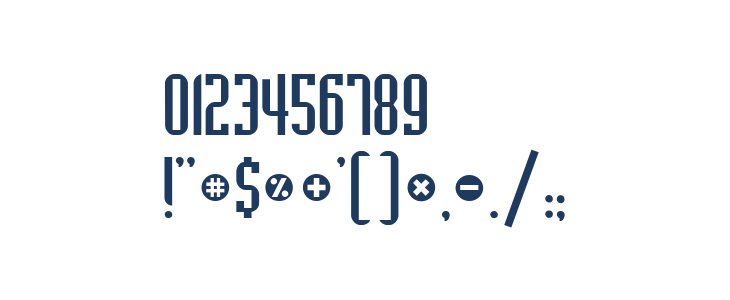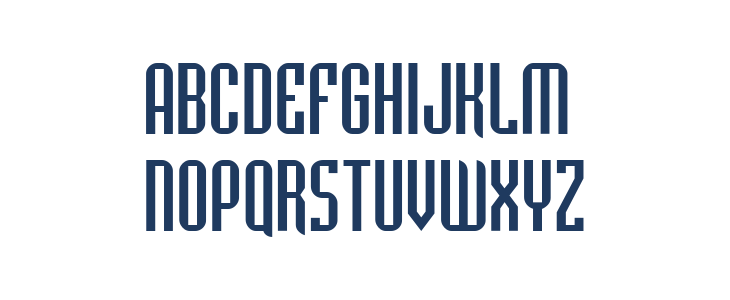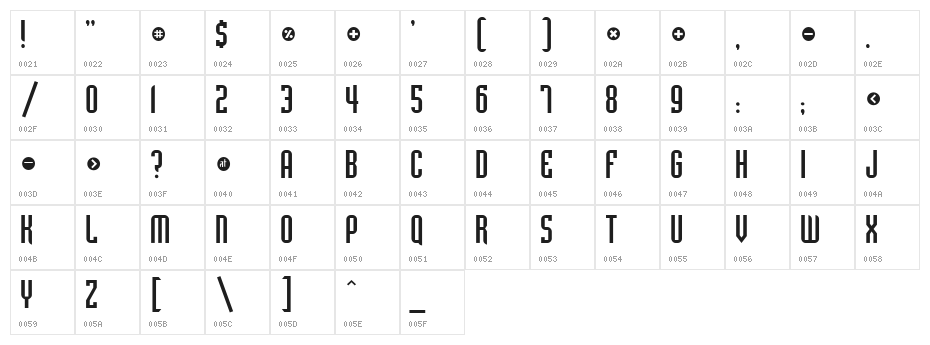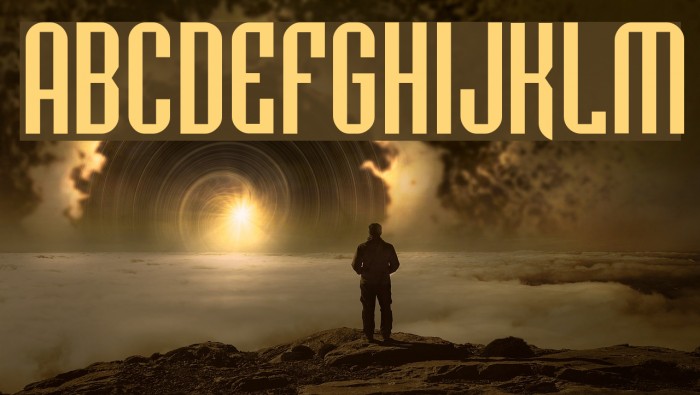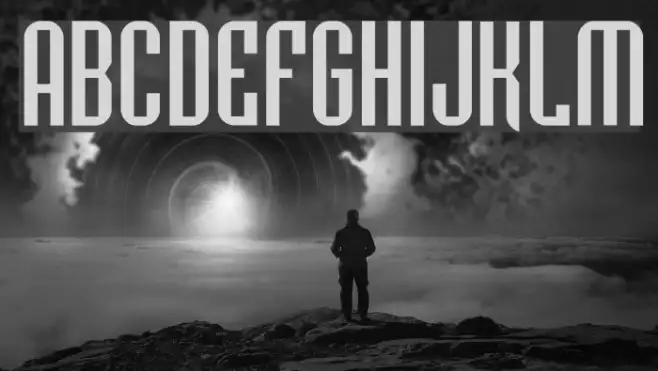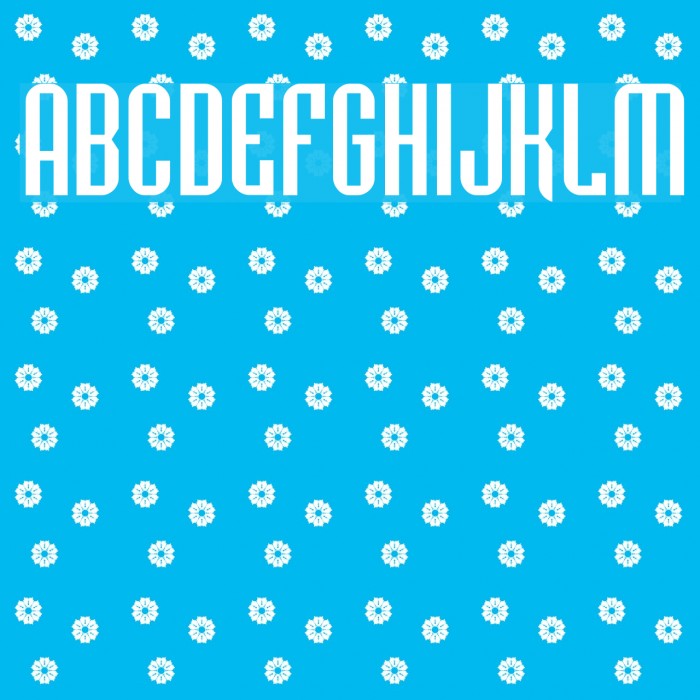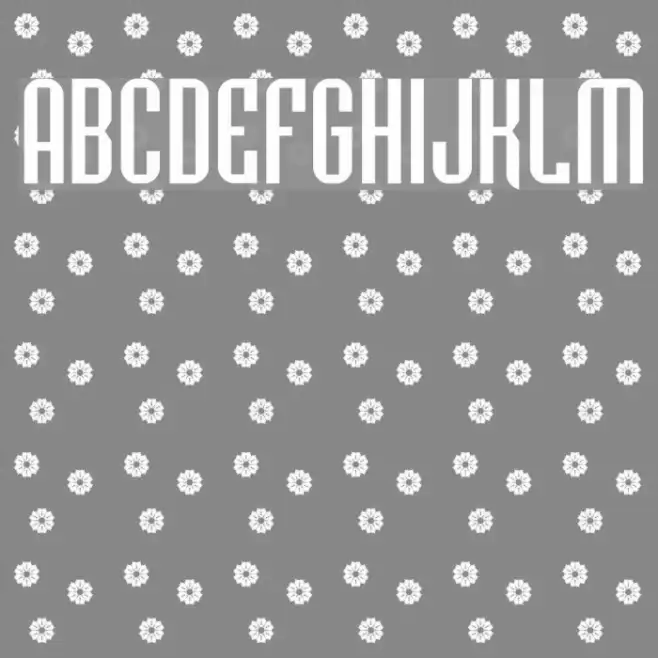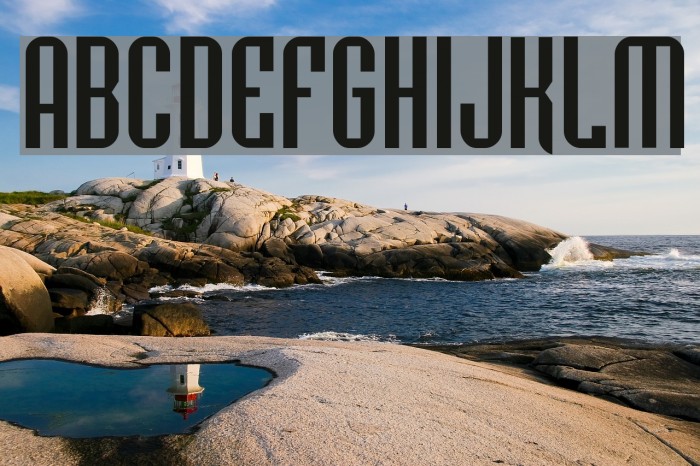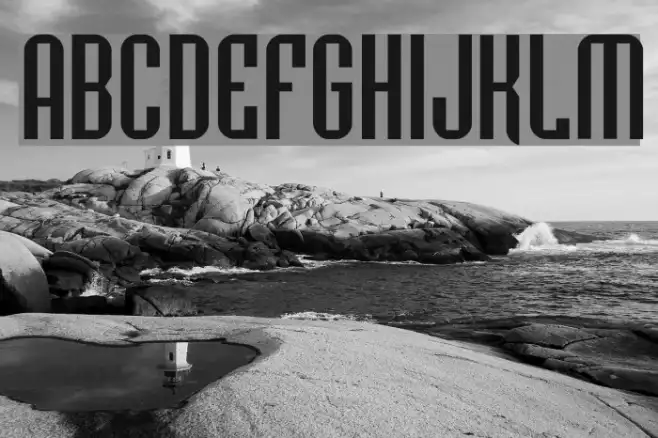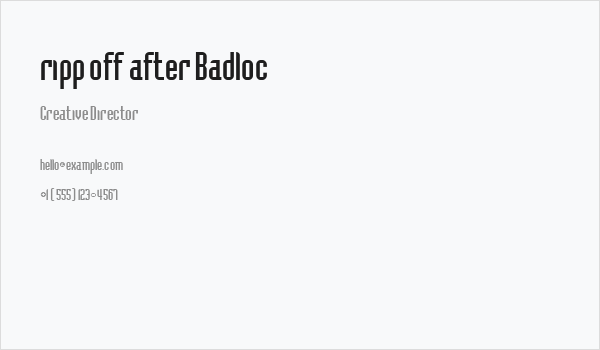
ripp off after Badloc Font
ripp off after Badloc Description
This font features a bold and geometric design with a strong presence. The characters are tall and narrow, giving a condensed appearance that is both modern and stylish. The uppercase letters have a uniform height, while the lowercase letters maintain a consistent baseline, enhancing readability. The numerals are distinct and align well with the overall aesthetic. Special characters are designed to match the boldness of the alphabet, making them suitable for various applications. The font's clean lines and sharp angles contribute to its contemporary feel, making it ideal for projects that require a striking and impactful typeface.